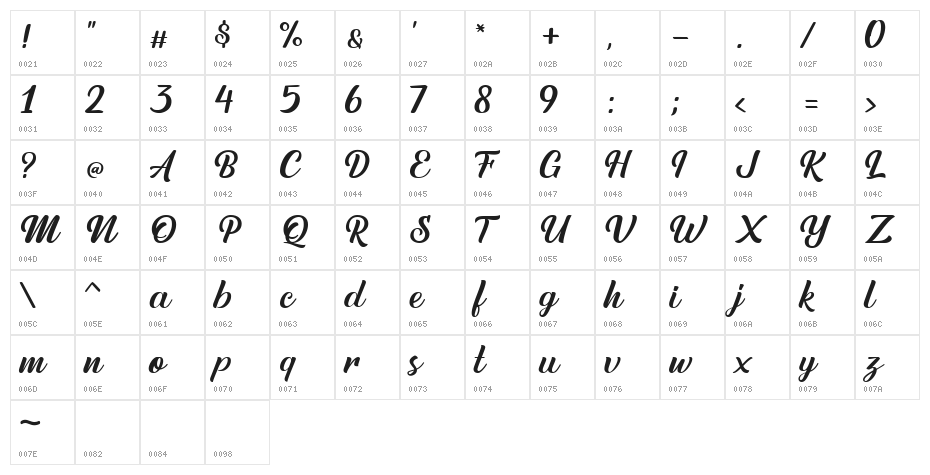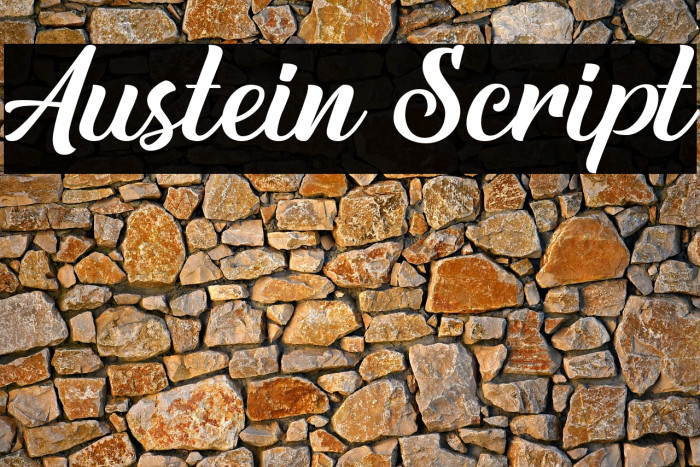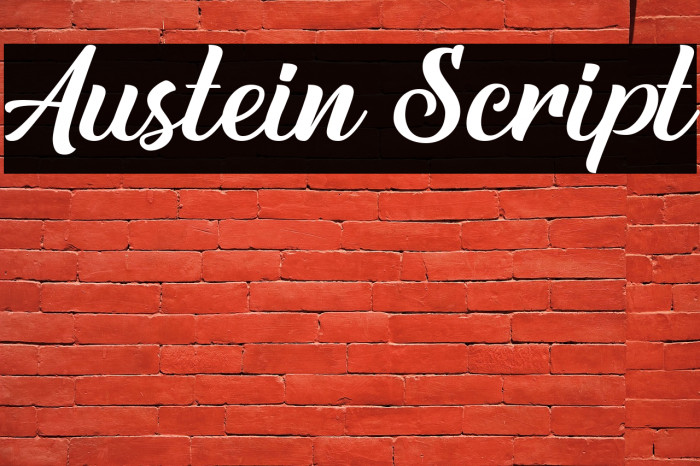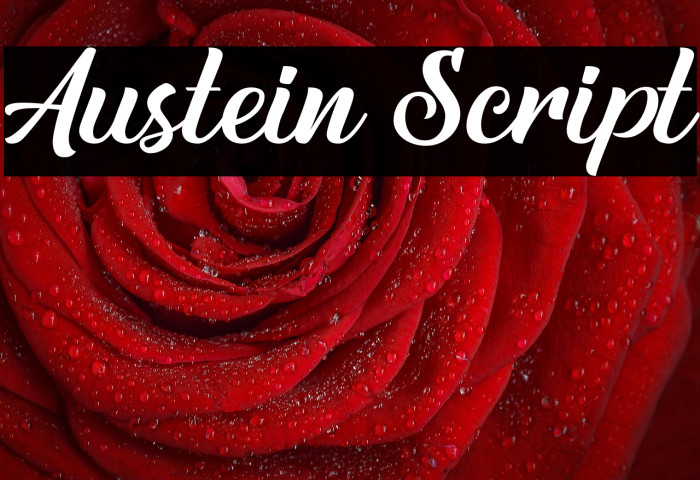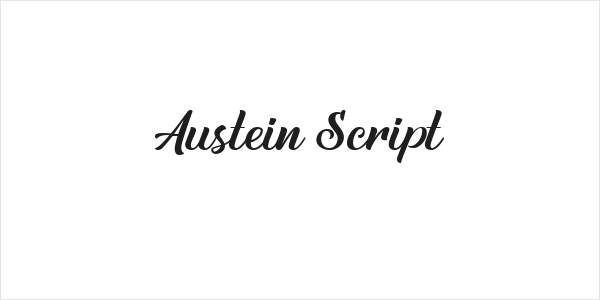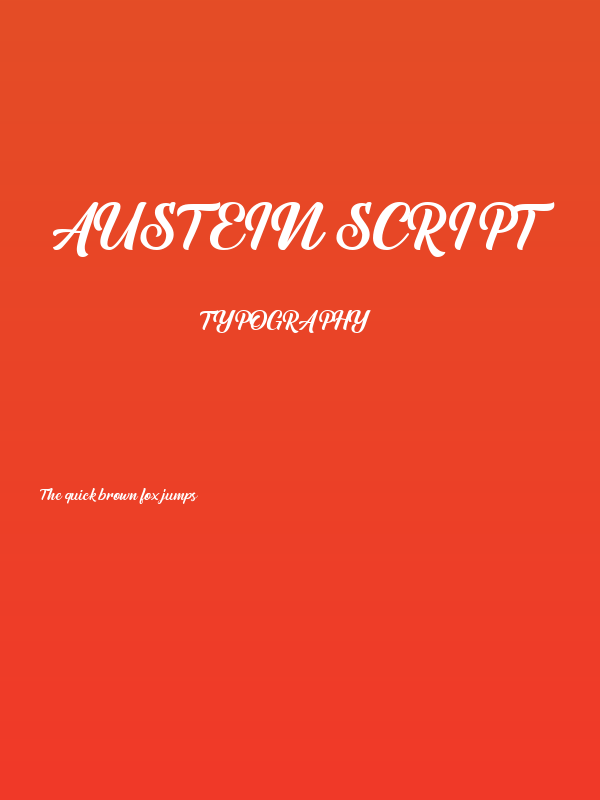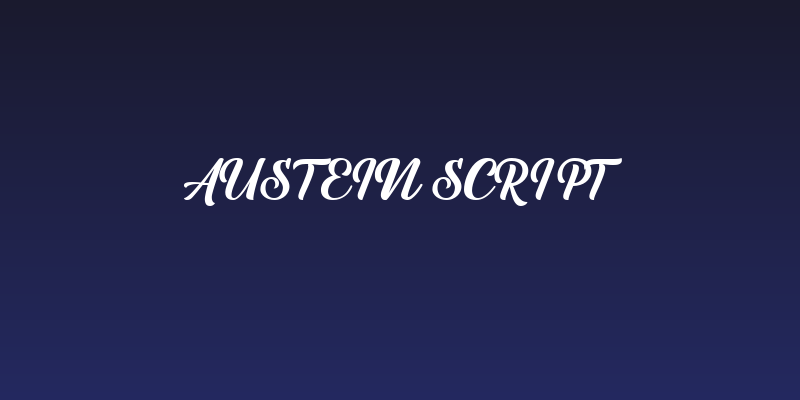
Austein Script Font
Austein Script Description
This script font exudes elegance and fluidity, characterized by its smooth, flowing strokes and cursive style. The uppercase letters are bold and slightly slanted, giving a sense of movement and grace. The lowercase letters maintain a consistent flow, with each character seamlessly connecting to the next, enhancing the script's cohesive appearance. The numerals are clear and distinct, maintaining the same elegant style as the letters. Special characters are designed with the same attention to detail, ensuring a harmonious look throughout. This font is perfect for projects that require a touch of sophistication and style.
| Overall Style | Elegant |
| Use Case | Logos, Invitations, Branding |
| Proposed Projects | Ideal for wedding invitations, elegant branding, greeting cards, and upscale packaging. |